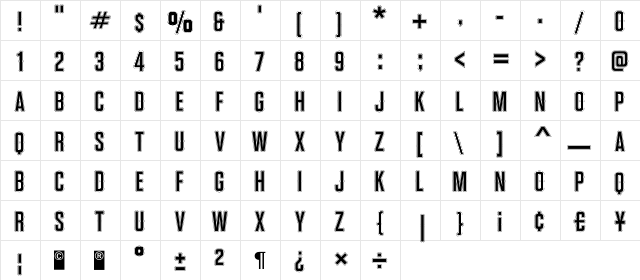
RazorFace Regular
Design Context for RazorFace Typeface
RazorFace is a composed and adaptable typeface that performs quietly and consistently across a wide range of design contexts.